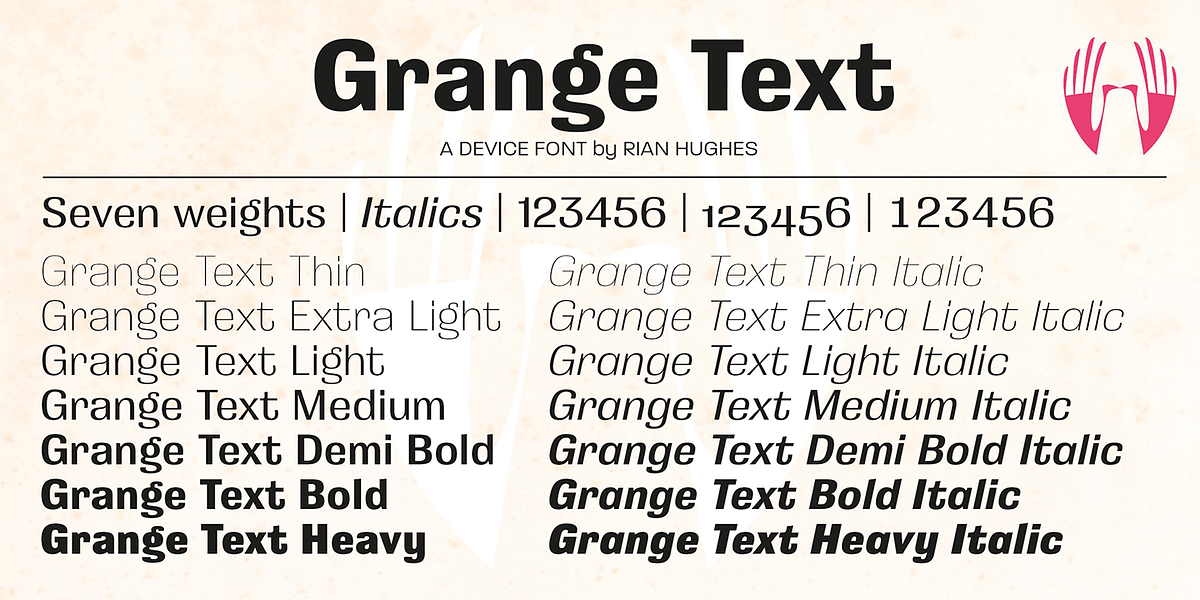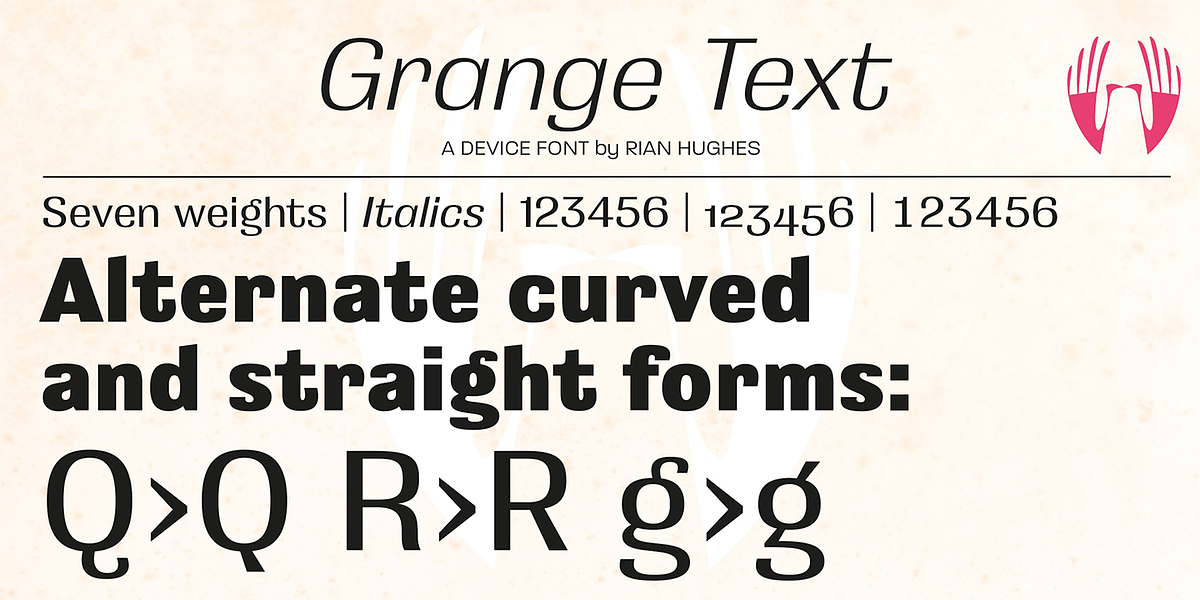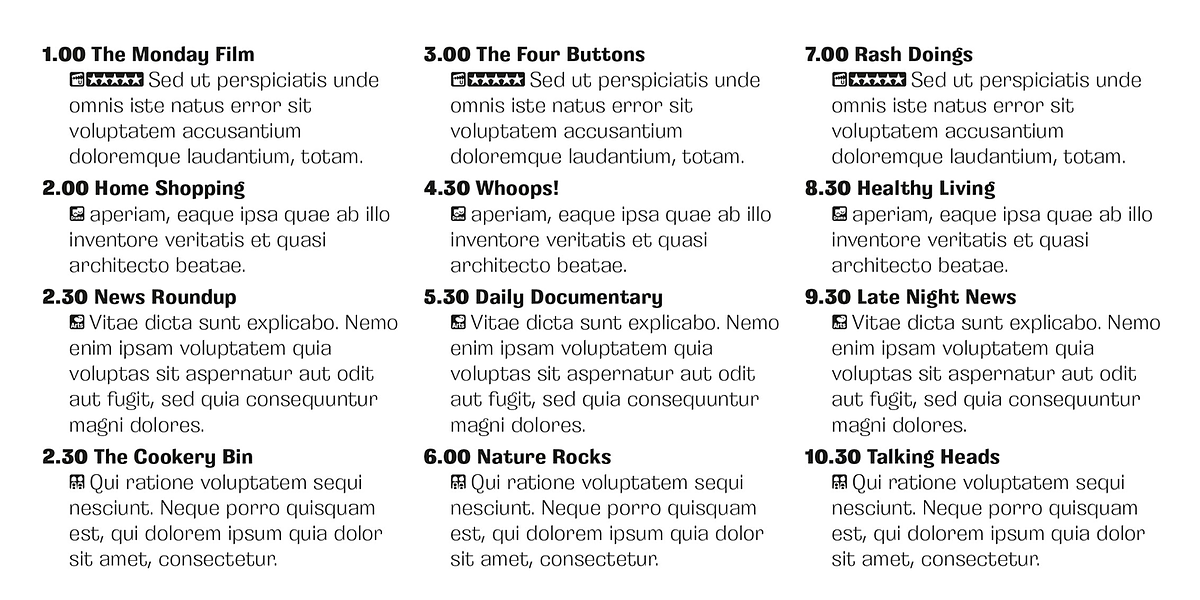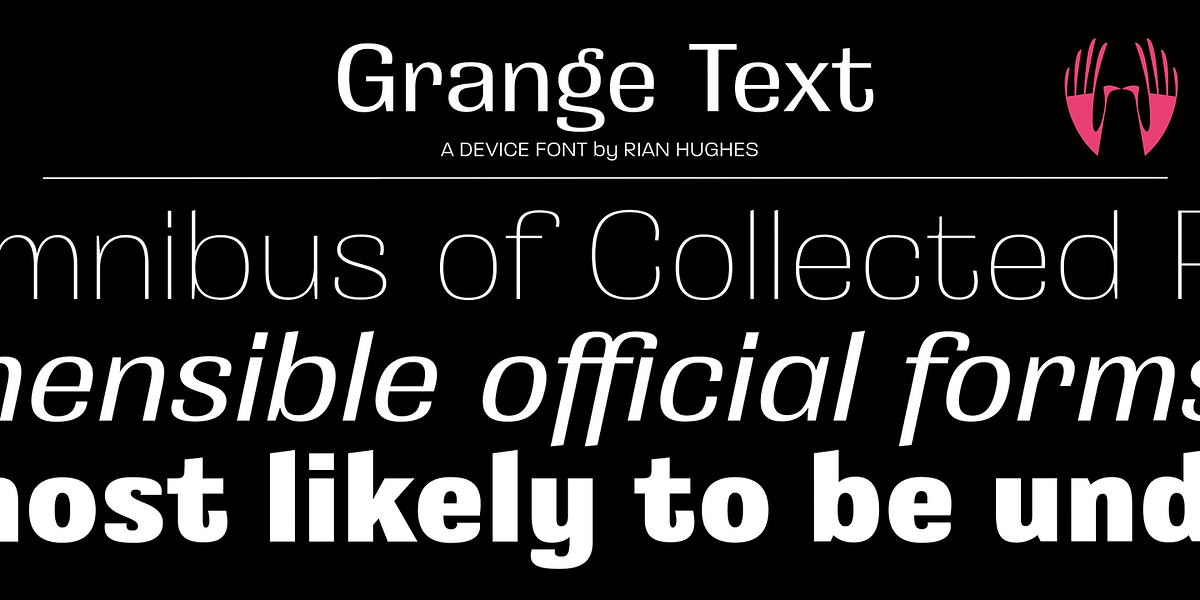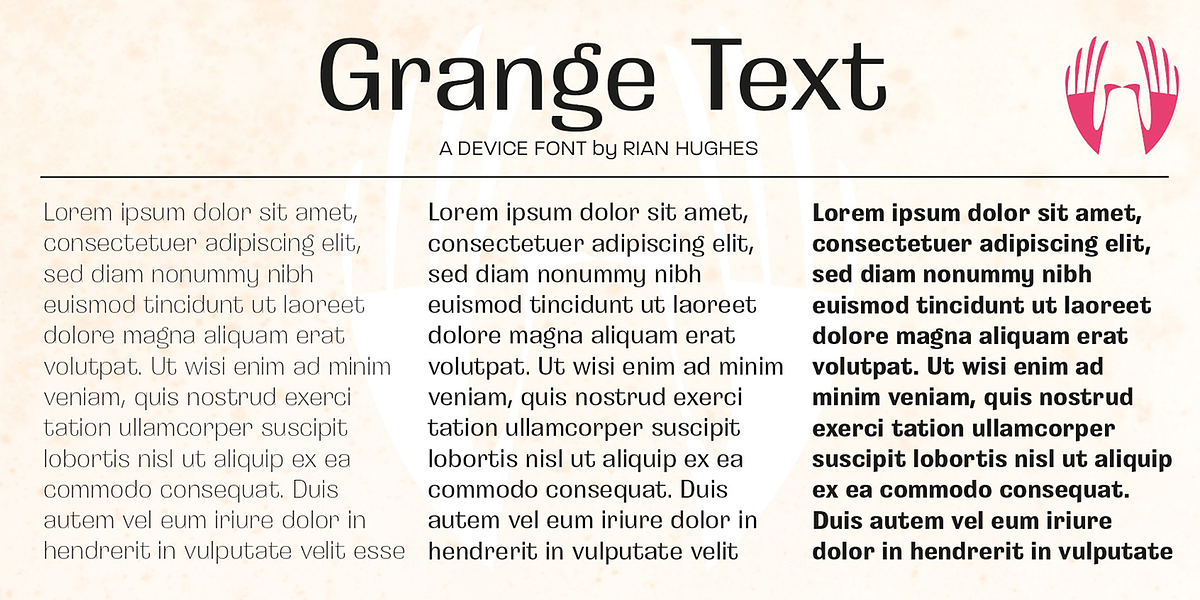
Grange Text
Grange Text is a contemporary grotesque sans serif font optimized for readability at smaller sizes. It features open character shapes and spacing. A non-text version of Grange is available for larger sizes and headlines, with tighter spacing and detailing. The font includes alternate curved and straighter versions of key characters, such as the lowercase 'g' and uppercase 'R', allowing for a sharper or warmer, more playful appearance.